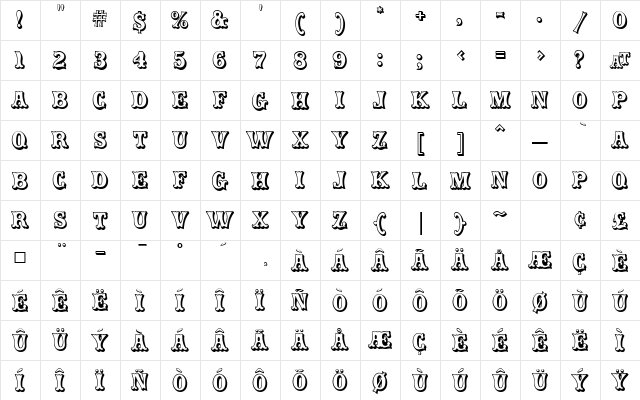
CarnivalMF OpenShadow
Design Context for CarnivalMF Typeface
CarnivalMF is built around its visual character rather than neutral utility — its distinctive forms are designed to make an impression at display sizes.
Font Pairing: Pair with a clean neutral sans-serif for body copy to let CarnivalMF's character lead without overwhelming the composition.
Pro Tip: Treat CarnivalMF as the centrepiece of your typographic hierarchy. One strong heading set in a decorative face can carry an entire layout.